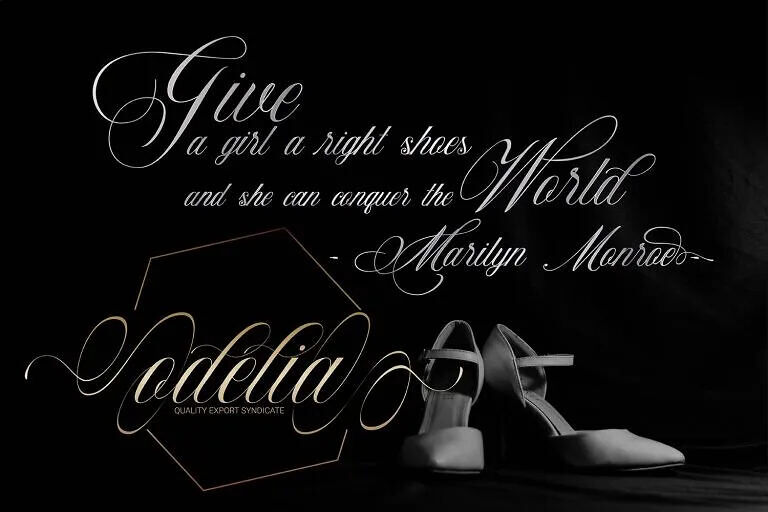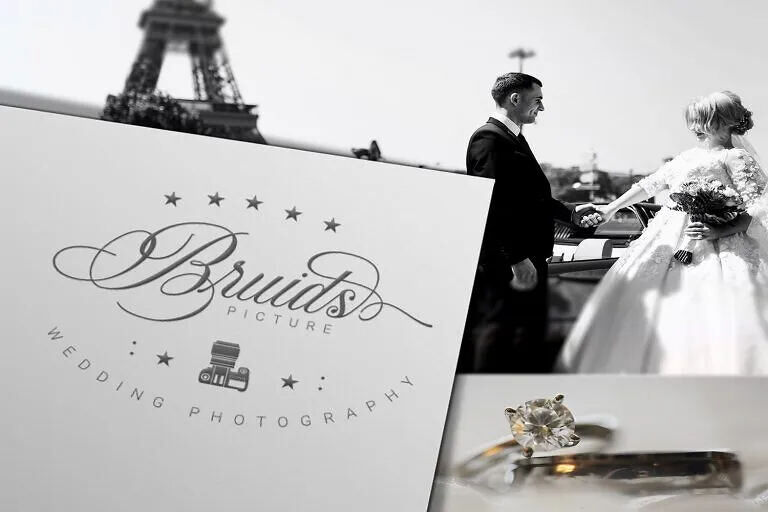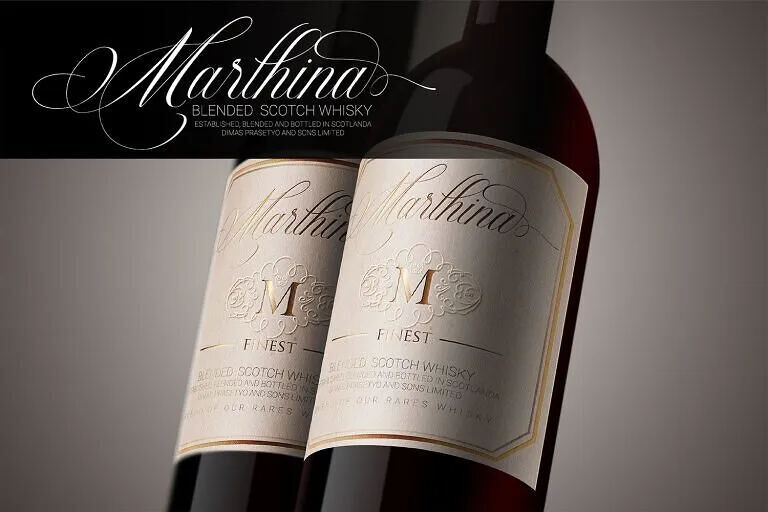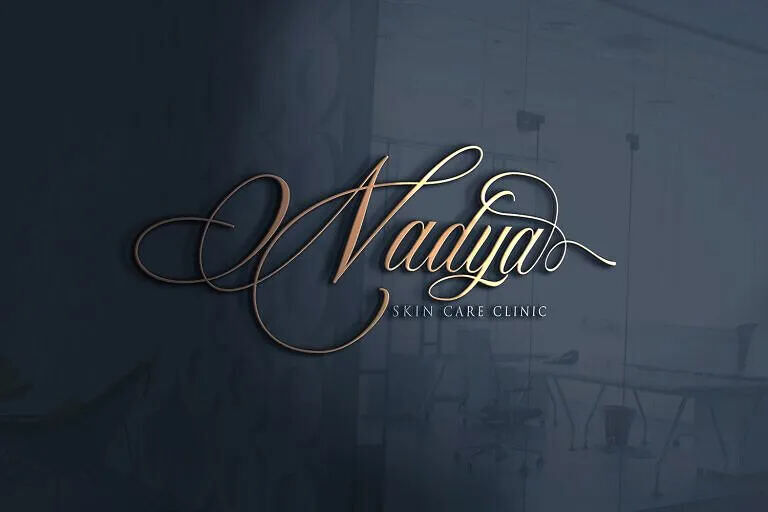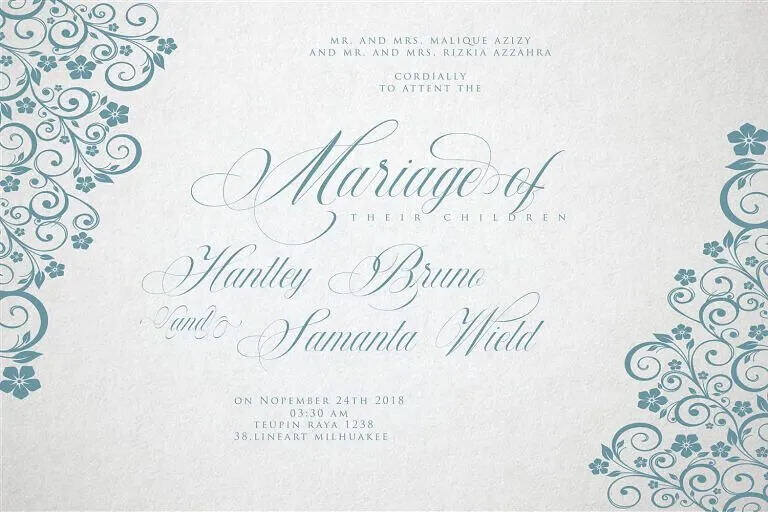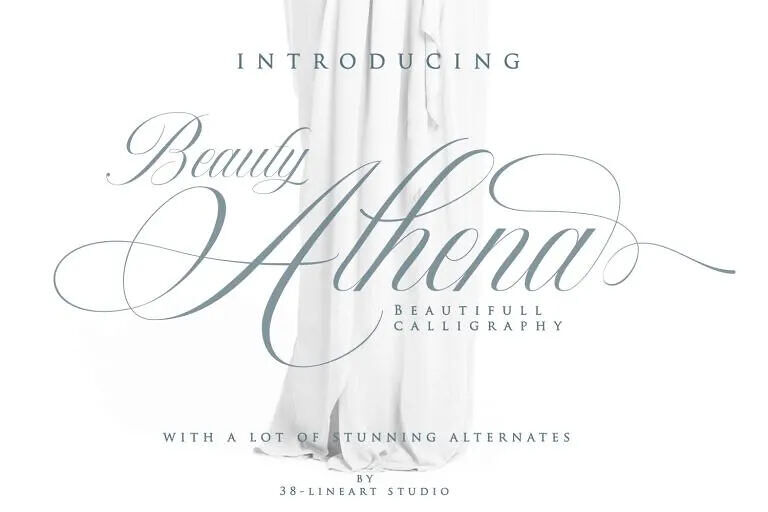
Beauty Athena Font
Introducing Athena, a beautiful calligraphy script by 38.lineart. It’s inspired by Athena, goddess of wisdom, courage, inspiration, mathematics, strength, strategy, the arts, crafts, and skill.
Athena font is a font that comes with very beautiful changing characters, a kind of classic decorative copper script with a modern touch, designed with high detail to bring stylish elegance, clean, feminine, sensual, glamorous, simple and very easy to read, because there are many letter connections.
This is the representative of two styles; you can use it for modern minimalism and also classic expert penmanship styles. Both of these styles can be applied in various formal forms such as invitations, labels, restaurant menus, logos, fashion, makeup, stationery, novels, magazines, books, greeting/wedding cards, packaging, letterhead, labels or any type of advertising purpose.